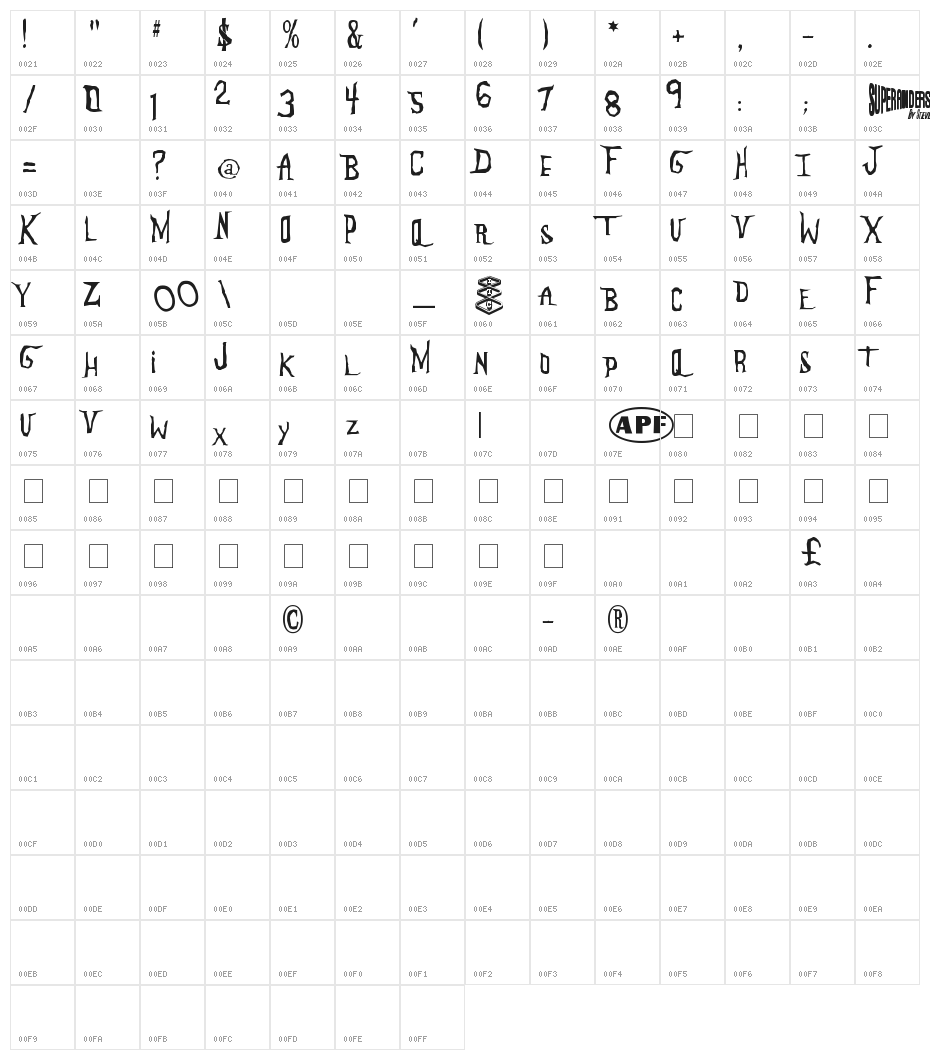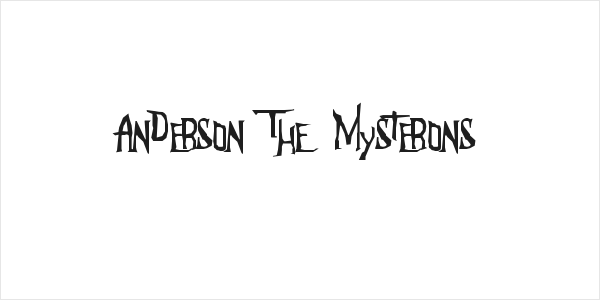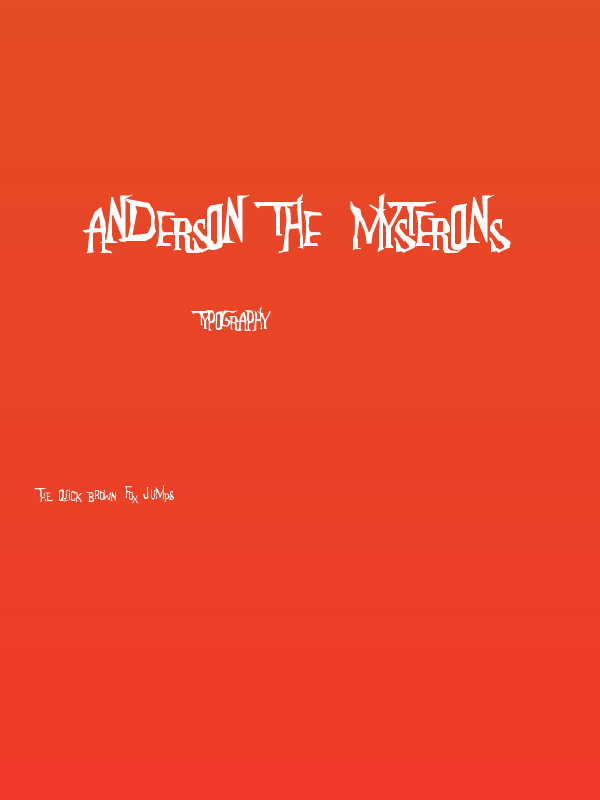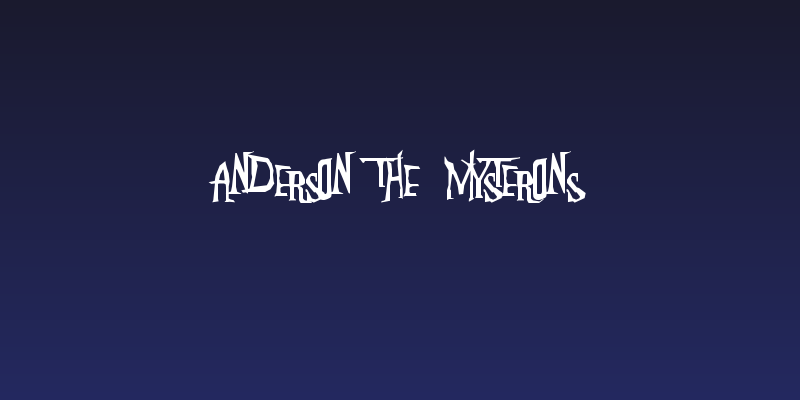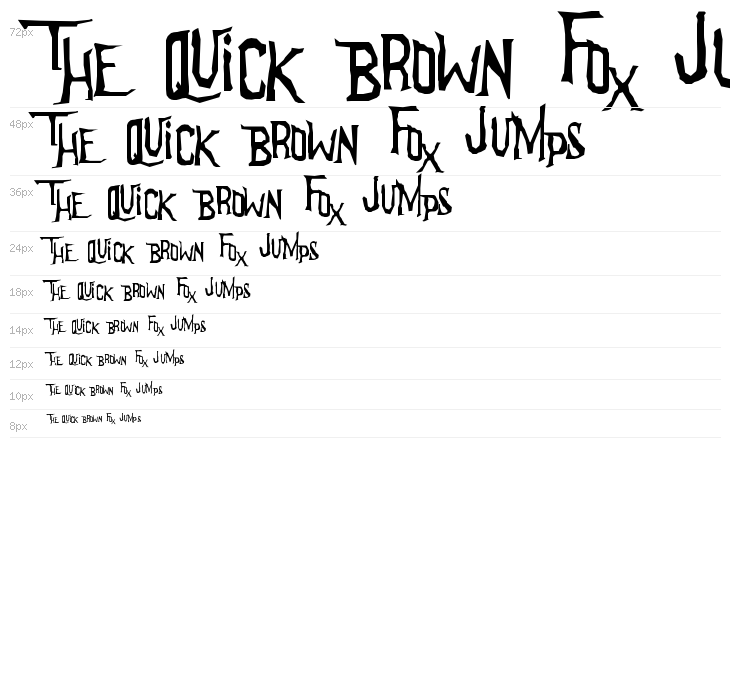
Anderson The Mysterons Font
Anderson The Mysterons Description
This font features a highly stylized and angular design, reminiscent of a hand-drawn or graffiti style. The characters are bold and irregular, with sharp edges and varying line thickness, giving it a dynamic and edgy appearance. The uppercase and lowercase letters maintain a consistent style, while the numerals and special characters blend seamlessly with the overall aesthetic. The font's unique and artistic flair makes it stand out, suitable for projects that require a bold statement.
Proposed ProjectsIdeal for album covers, posters, street art designs, and any project needing a bold, artistic touch.